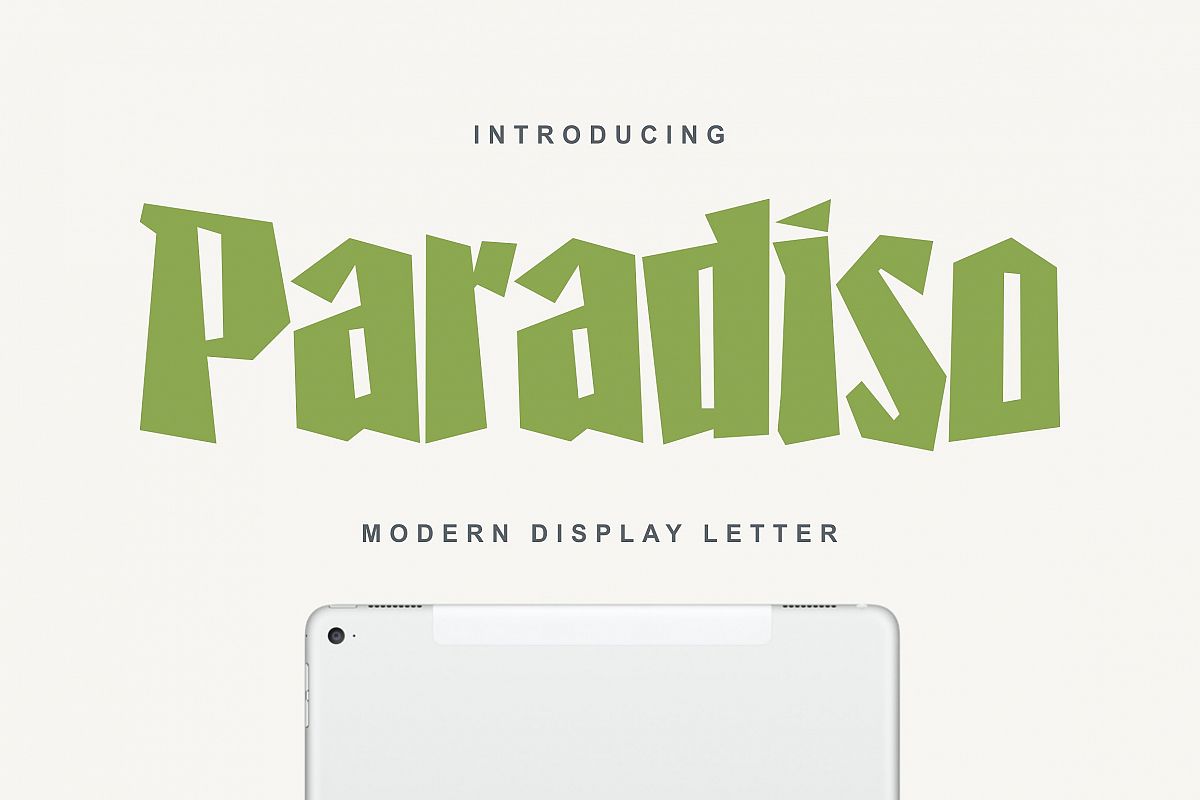
Paradiso Typeface
Paradiso
Introducing a new look with the typeface was I gave the name Paradiso. It is is the newest type you may require.
You can use these fonts for various purposes. such as a logo, t-shirts, posters, labels, letterhead, book covers, and others.